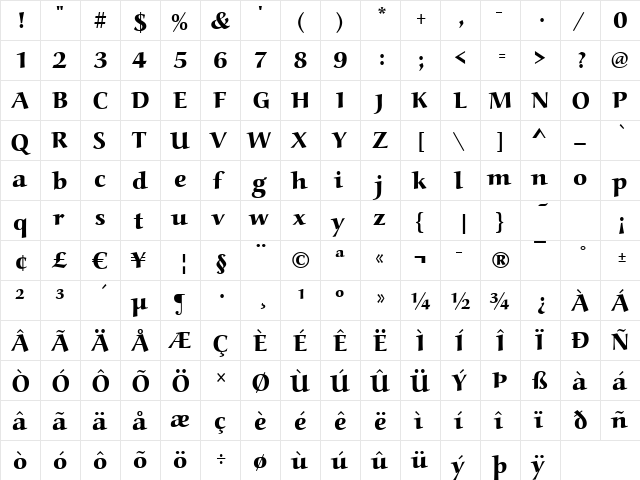
Aldebaran Bold Font Preview
Aldebaran Bold
Design Context for Aldebaran Typeface
Aldebaran takes a measured approach to typography — its balanced proportions and neutral character make it a reliable workhorse for both digital and print work. The heavy weight commands attention and anchors typographic hierarchies.